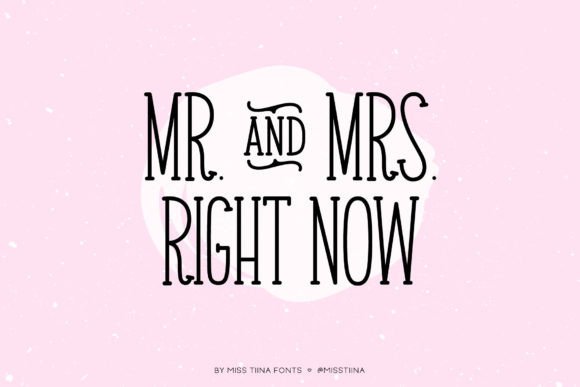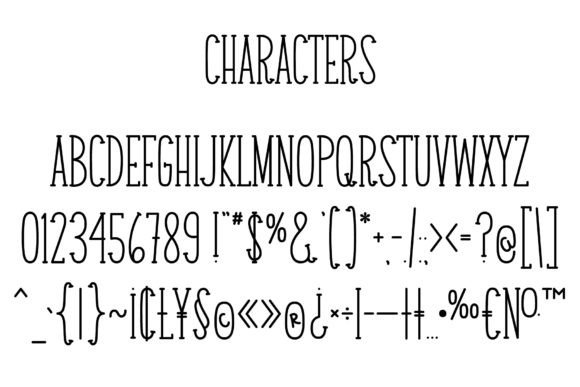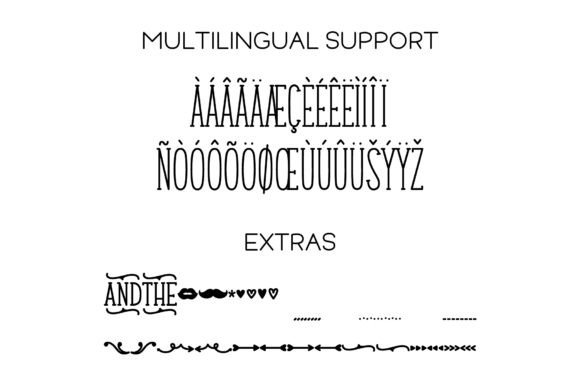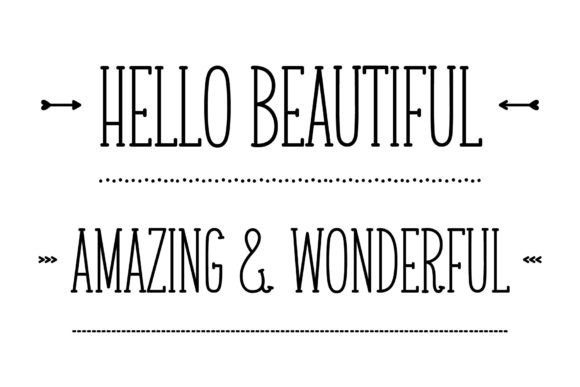
Mr. & Mrs. Right Now Font: A Cute Serif & Dingbat Font for Cricut & DIY
About the Mr. & Mrs. Right Now Font
The wait is over! The incredible Mr. & Mrs. Right Now Font is now available for your design toolkit. Mr. & Mrs. Right Now is a stylish, yet fun handwritten serif font. Its unique charm and unusual coziness make it the right (!) choice for any design project you are working on. Plus, the lowercase characters contain some lovely decorative dingbats!
This font’s playful yet sophisticated style makes it ideal for headlines, short-form content, branding elements like logos and taglines, and packaging design where its charm can shine. The decorative dingbats add a unique touch, perfect for invitations or greeting cards. However, its handwritten nature and decorative elements make it less suitable for body text, long paragraphs, or user interface (UI) elements where readability is paramount.
Mr. & Mrs. Right Now exudes a friendly, slightly whimsical personality. It’s best suited for brands that project a warm, approachable image, perhaps in the lifestyle, food, or wedding industries. To maintain visual harmony, pair it with a clean sans-serif like Montserrat for body copy or a more geometric sans-serif like Futura for a modern contrast. Alternatively, a simple serif like Playfair Display could complement its elegance.
Avoid pairing it with overly ornate or heavily textured fonts, which could clash with its unique character. The goal is to balance its hand-drawn feel with a crisp, legible counterpart for a cohesive design.
Mr. & Mrs. Right Now Font Usage Examples
Mr. & Mrs. Right Now Font Example